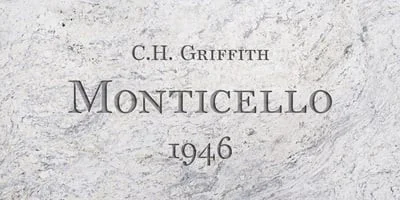
Monticello Font
Monticello Font is an exceptional choice for projects that demand a sense of historical gravitas, academic authority, and timeless clarity. It's perfectly suited for formal publications, historical documents, museum exhibitions, educational materials, and any application where a traditional, dignified, and highly legible serif typeface is required. Imagine it gracing the pages of a scholarly journal, lending an air of established credibility to a university's prospectus, or providing a sophisticated and authoritative voice for a historical society's website. Its precise forms and classic proportions ensure your message is conveyed with both seriousness and an undeniable sense of enduring intellectual heritage.
What makes Monticello Font so exciting is its deep roots in typographic history, offering a direct link to the foundational aesthetics of printed knowledge. It embodies a sense of enduring wisdom and scholarly rigor, making it ideal for content that requires a serious and trustworthy presentation. This font isn't just about conveying information; it’s about establishing credibility and respecting tradition, making every word feel thoughtfully considered and historically significant. It’s the ideal tool for designers who aim to create visuals that are both deeply informative and impeccably styled with a classic touch.
The Monticello Font family typically offers a range of weights and styles to provide comprehensive design flexibility, often focusing on the core attributes that define its classic appeal. You can expect to find a standard Regular weight that embodies its precise and traditional design, along with potential variations such as an Italic for emphasis or a Bold for stronger headings. These different styles allow for creating clear typographic hierarchies, ensuring that whether you need to present complex academic data or compelling historical narratives, the Monticello Font provides the foundational versatility to achieve a cohesive, authoritative, and truly timeless design.